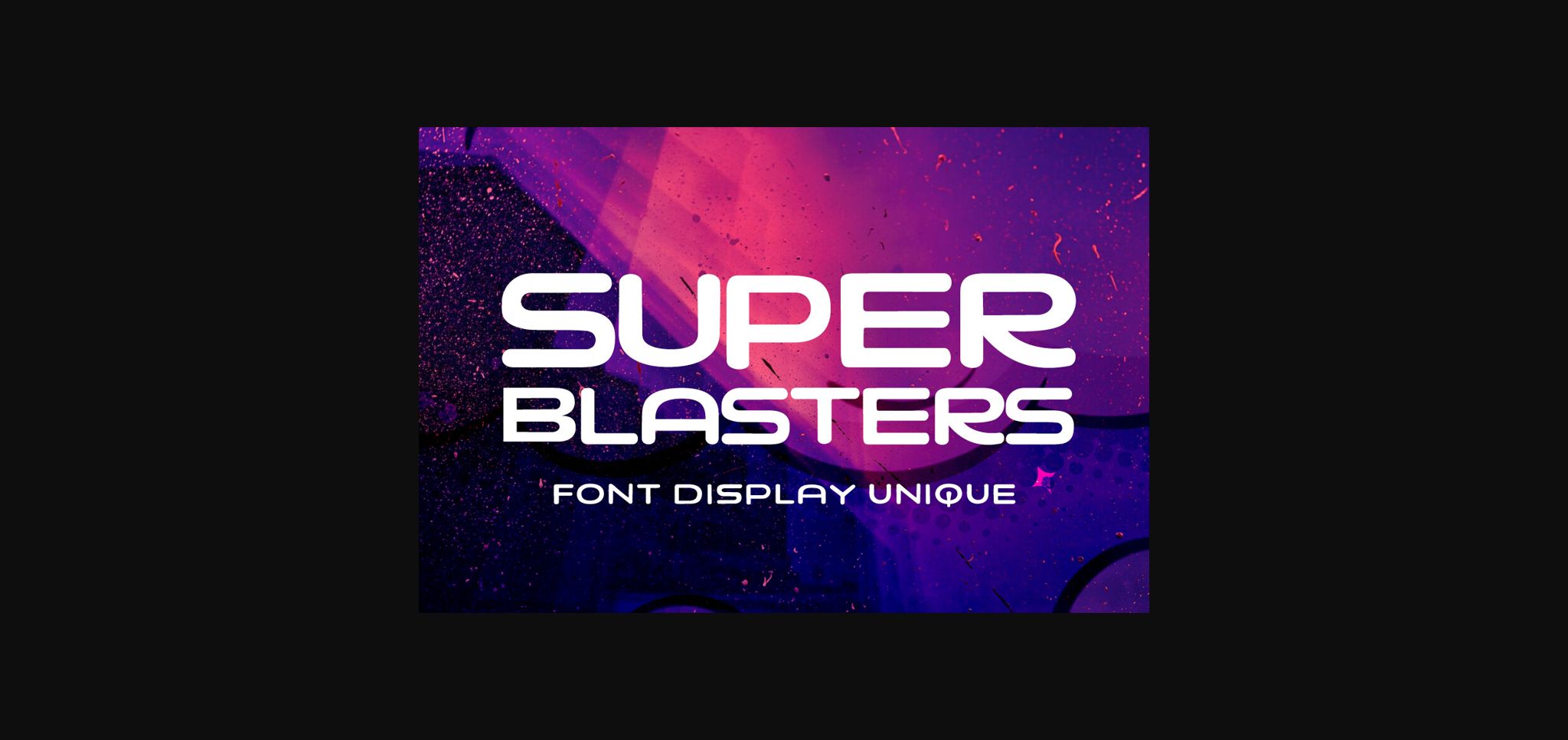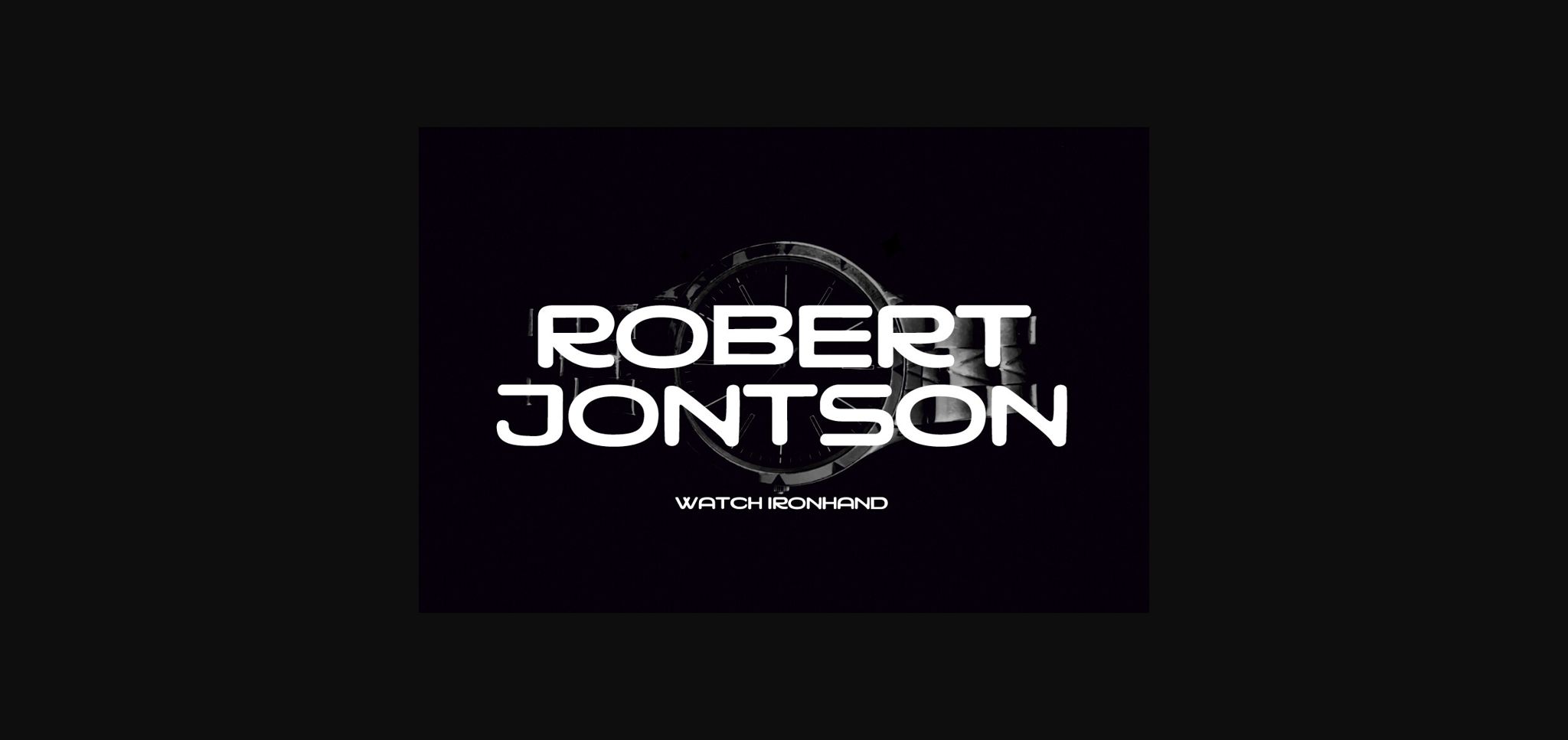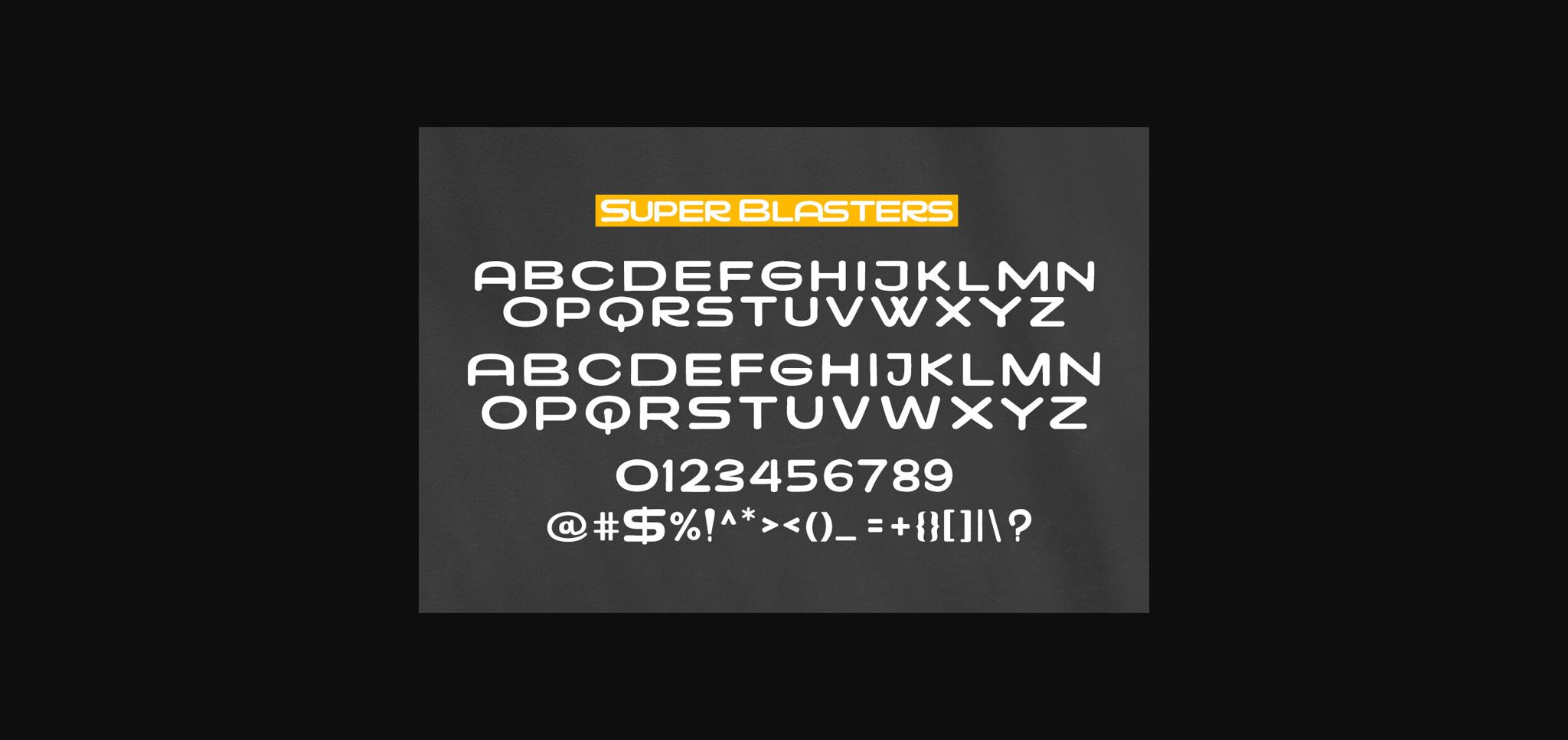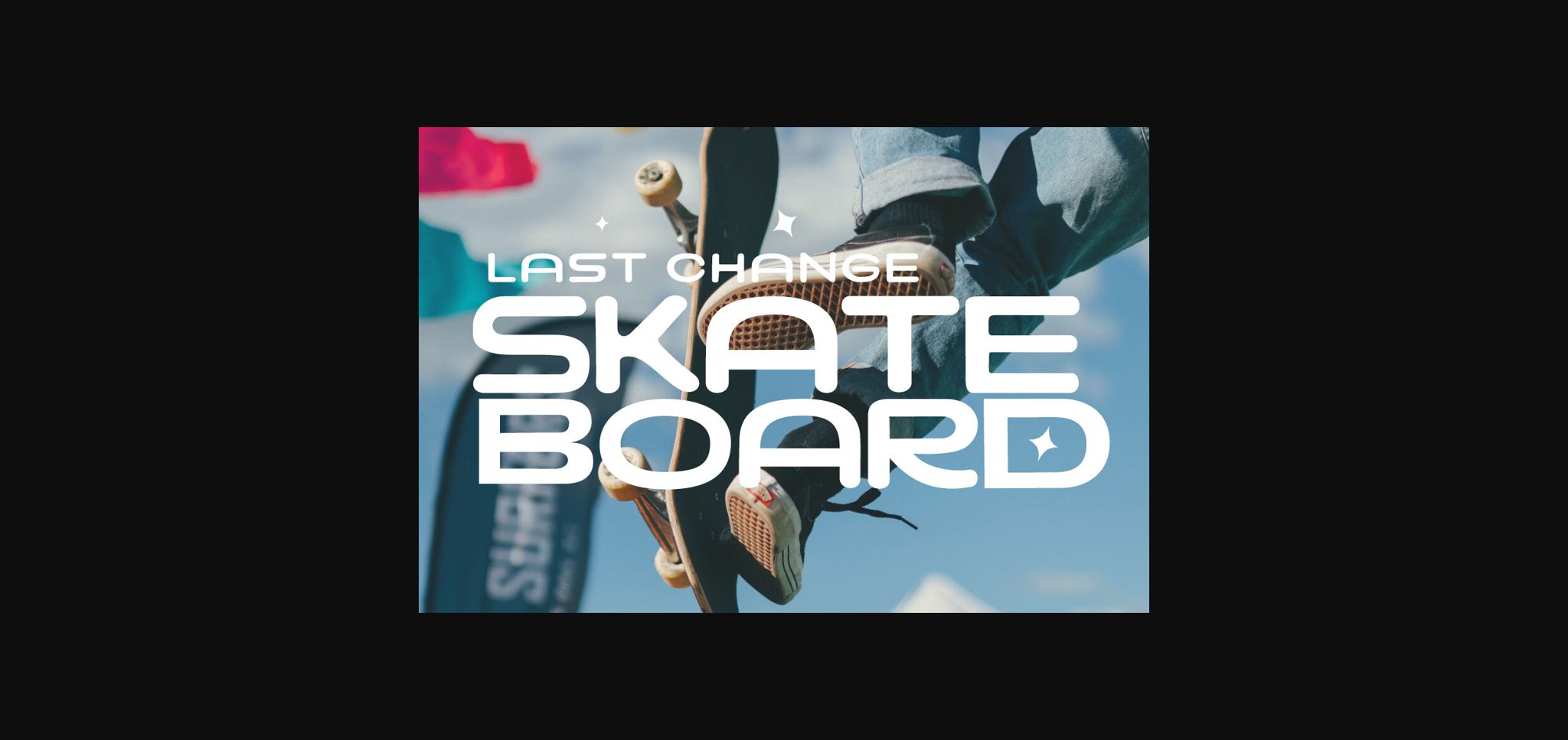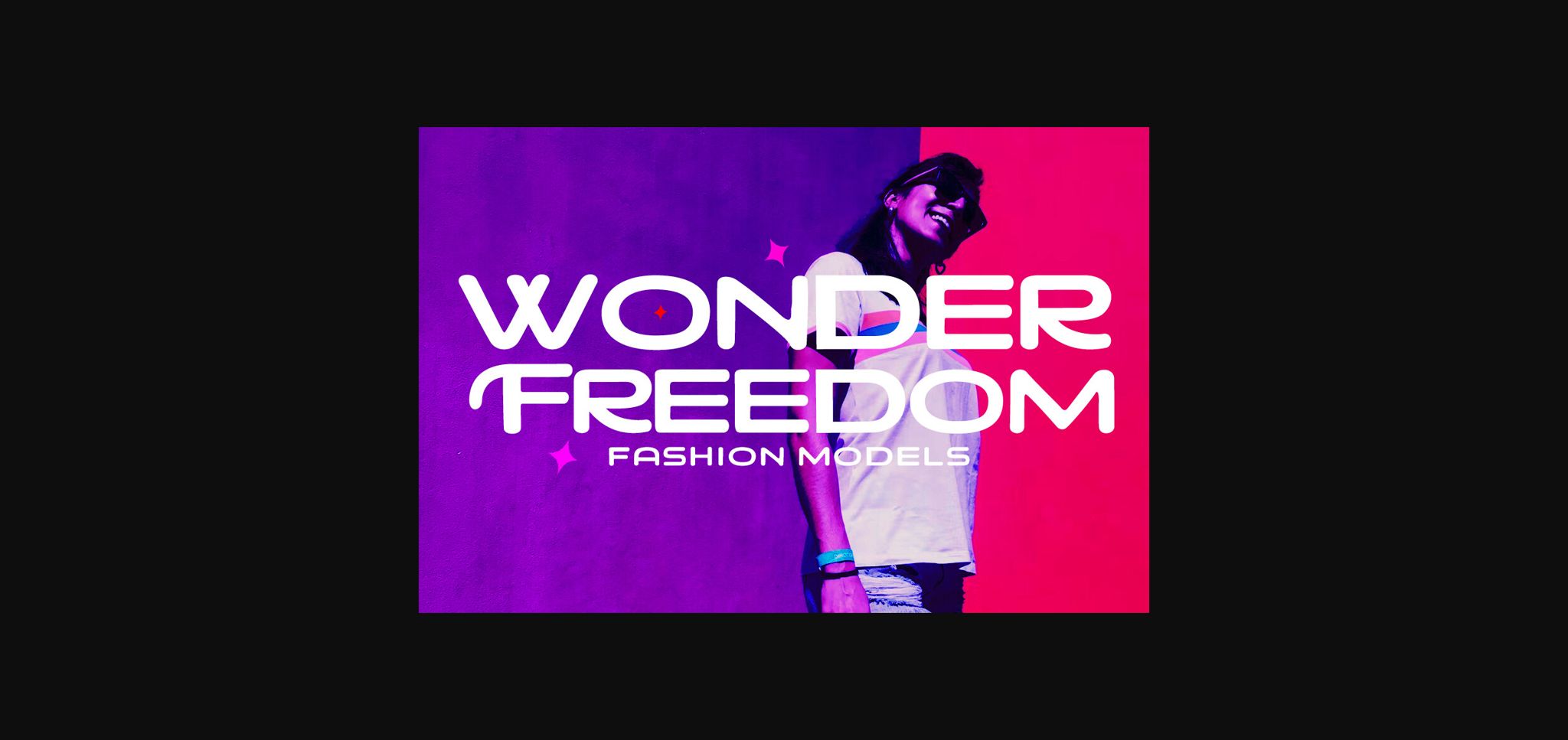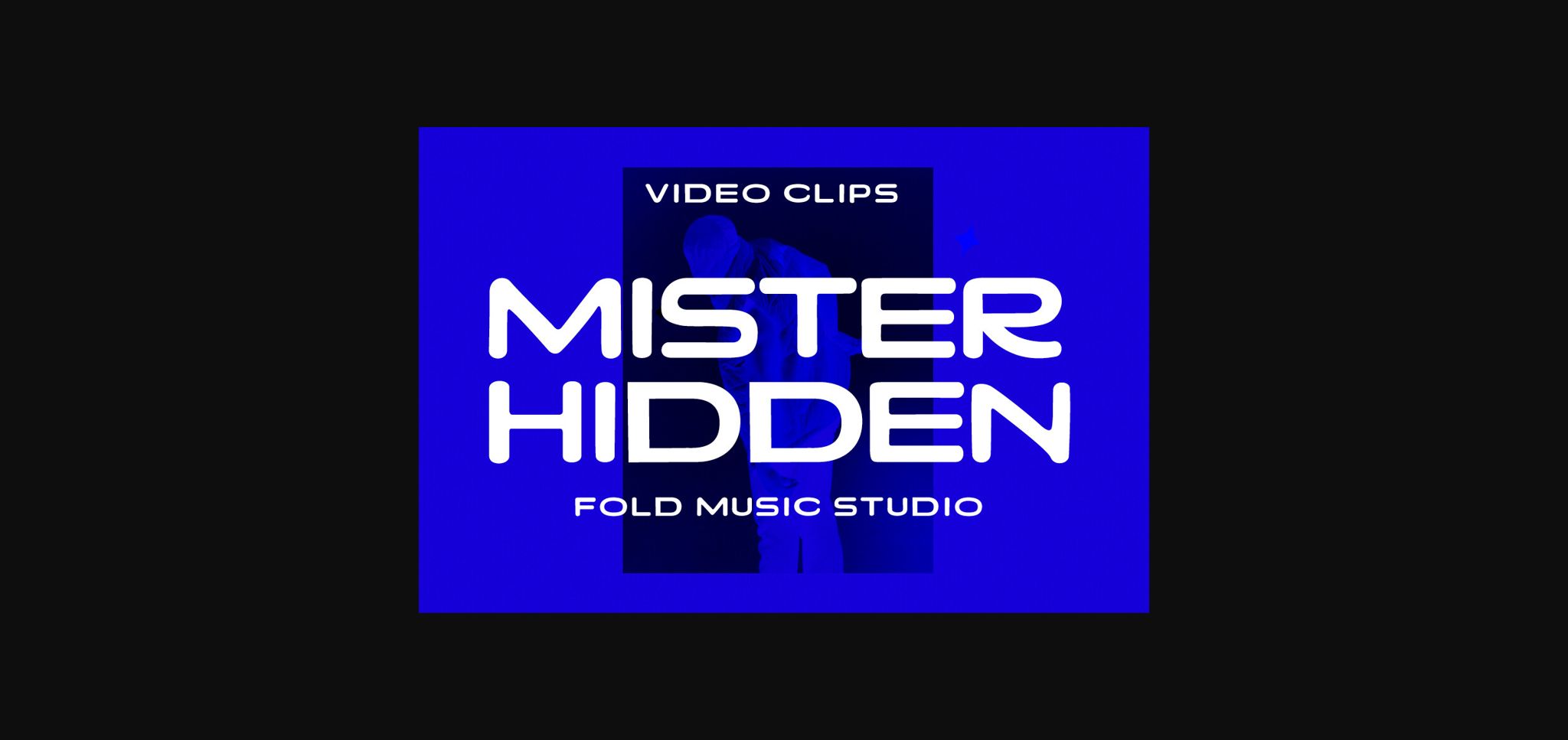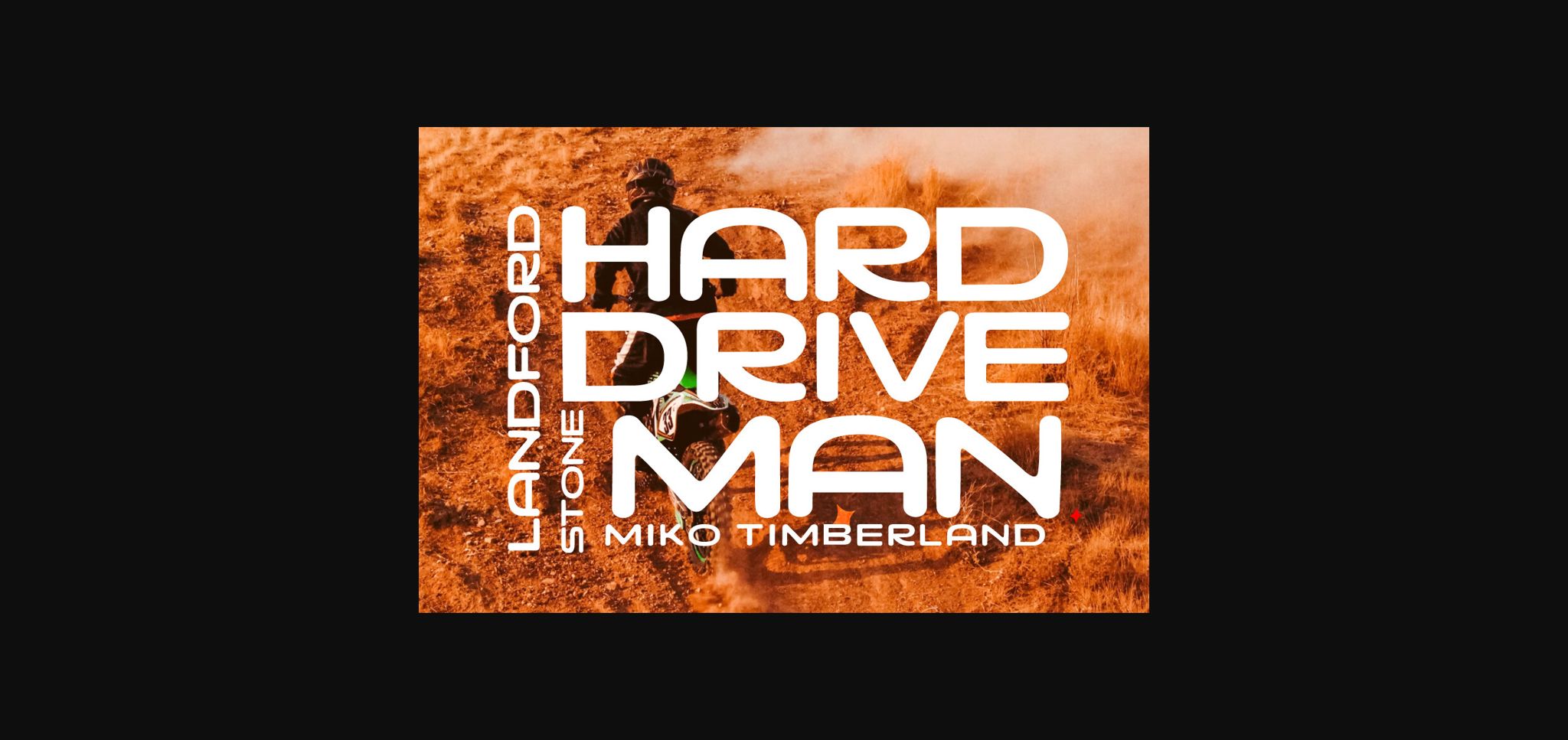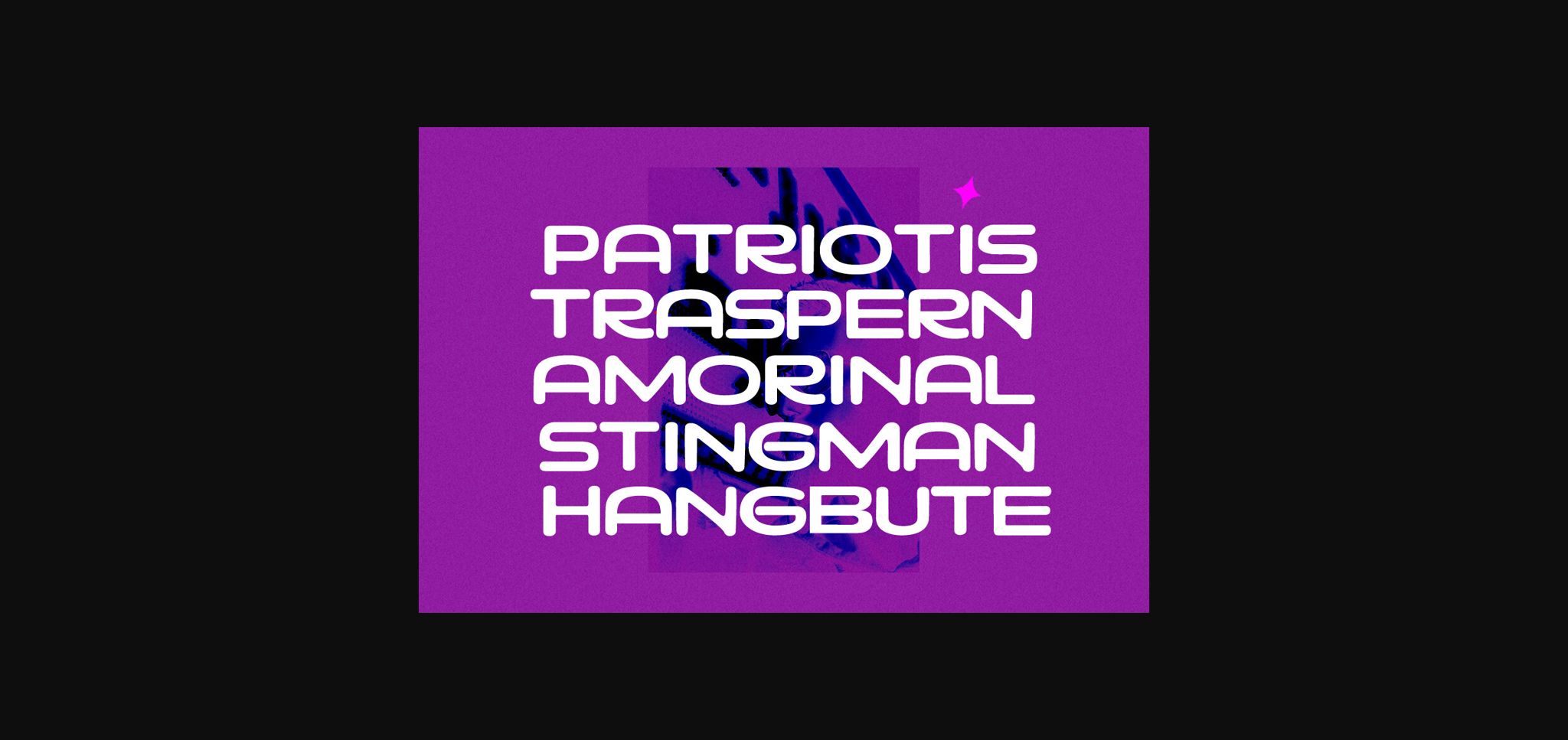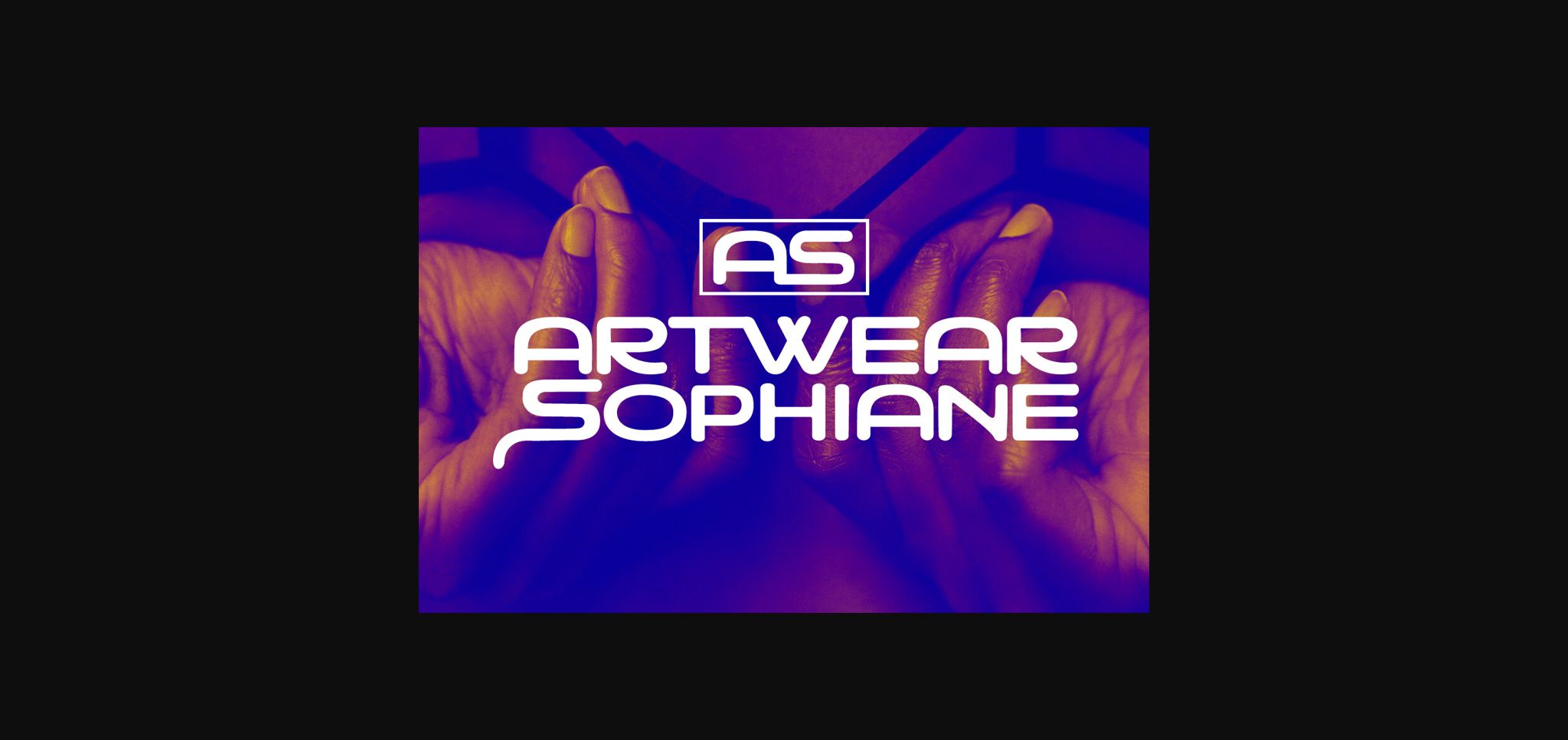
Super Blasters Font
About Super Blasters Font
Super Blasters elegant font designed when in a creative mood and perfect shape, inspired by the bold, natural look of serifs so beautiful for today’s fashion. bold, balanced and varied, born for luxury and beauty. including uppercase letters, numbers, and various kinds of punctuation
Super Blasters is built with OpenType features and includes initial and ending language styles, alternative characters for most lowercase letters, numbers, punctuation, alternatives, endings, and also supports other languages.